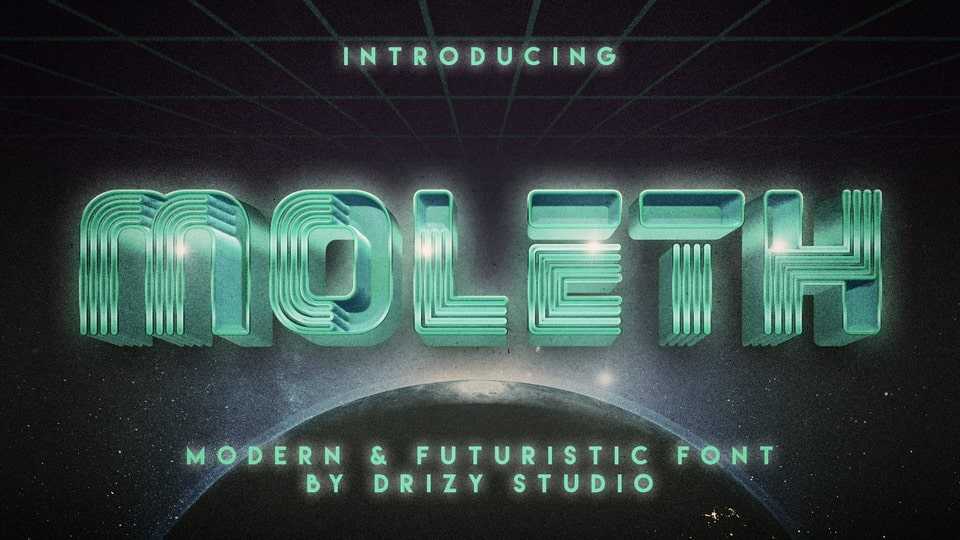
Download Moleth font, a modern and futuristic typeface offering all the basic styles you will need for a successful project. This bold vibe can easily apply to your favorite designs that require a sci-fi touch.
Designer: Drizy Studio